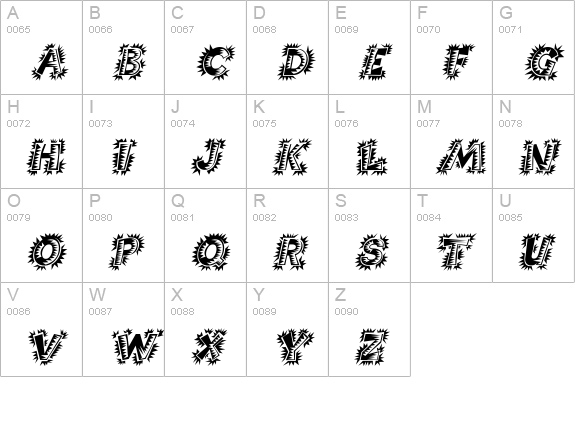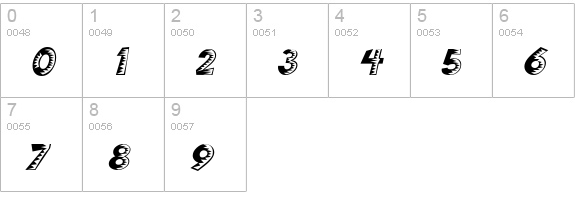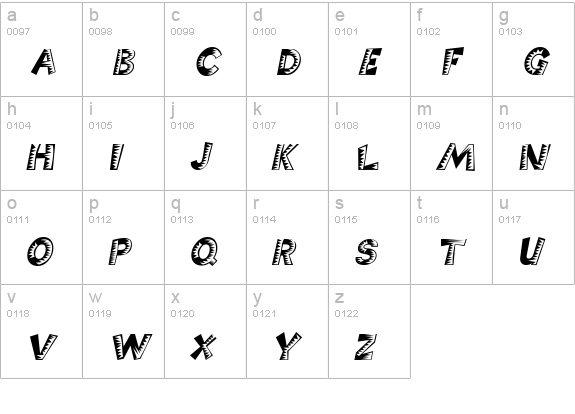
Chorizo Italic is a distinctive, italic variant in the Chorizo typeface family \xE2\x80\x94 well suited to design and typography projects.
Chorizo Italic is a modern and stylish font that exudes a sense of sophistication and elegance. With its sleek lines and unique flair, this typeface is perfect for adding a touch of class to any design project. The italicized version of Chorizo adds a dynamic and stylish element to the text, making it stand out from the crowd. What's even better is that Chorizo Italic is available for free download at FontsMarket.com. This means you can easily access this beautiful font and use it in your personal and commercial projects without any cost. So why wait? Add a touch of elegance to your designs with Chorizo Italic today!